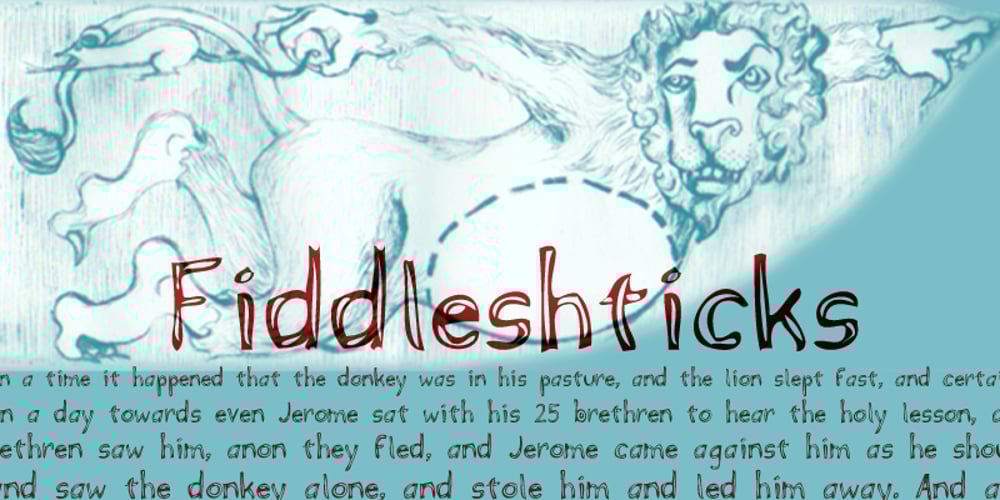
Fiddleshticks Font Family was designed by Adriana E. Hernandez and published by Adriprints. Fiddleshticks contains 4 styles and family package options. Fiddleshticks is a novelty font inspired by woodcuts. Woodcuts are prints made using cutting tools to carve a flat wood piece, spreading ink on the surface, leaving behind a rough-hewn look on the final printed image. It is an attempt to recreate outlined lettering in the style of this technique. – What was the inspiration for designing the font? Woodcut printing and linocut printing inspired me to make this font. – What are its main characteristics and features? outline, bold, funky, chunky – Usage recommendations: novelty, scrapbooking, Halloween, logo, fun